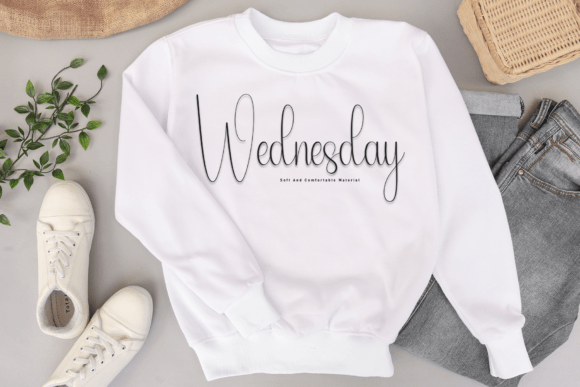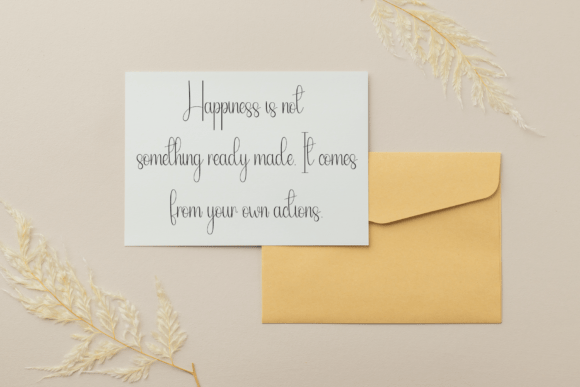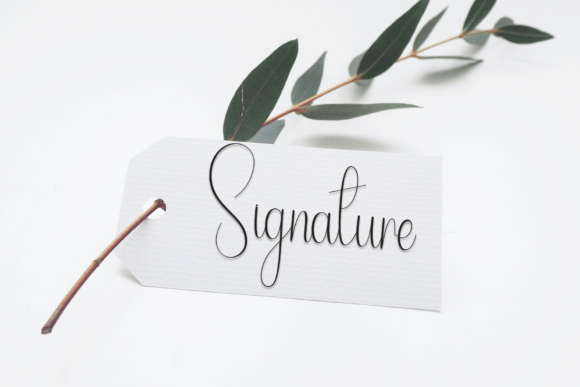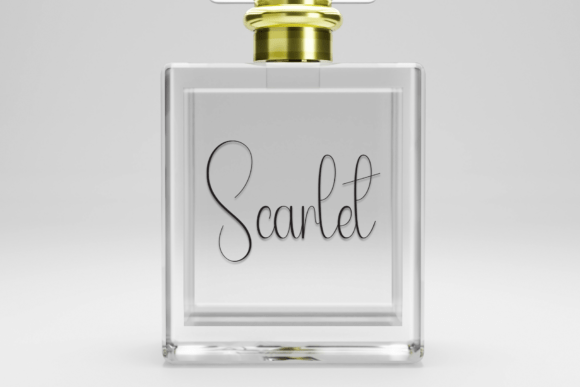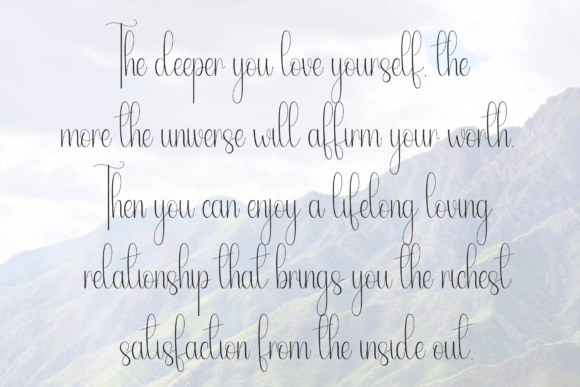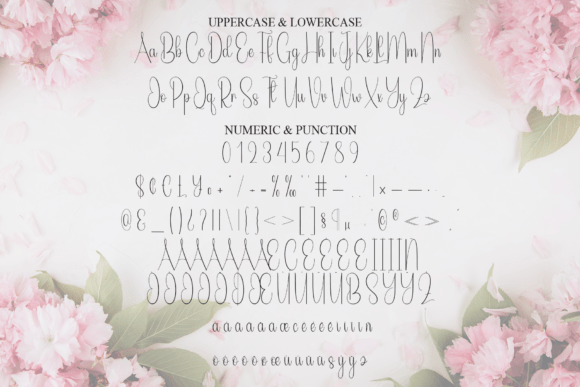
Introducing Greatening Font: Elevate Your Designs with Elegance and Playfulness
In the world of typography, fonts play a crucial role in conveying the tone and personality of a design. For designers and crafters seeking a typeface that embodies both sophistication and whimsy, Greatening Font is an exceptional choice. This stylish handwritten script font seamlessly blends modern elegance with a playful touch, making it perfect for a wide range of creative projects.
The Unique Charm of Greatening Font
Greatening Font boasts fluid strokes and charming curves that breathe life into any design. Its unique character lies in its ability to add a personal feel, making each project stand out with warmth and sophistication. Whether you’re crafting a logo, designing packaging, or creating invitations, Greatening Font is the ideal companion for bringing your vision to life.
Key Features of Greatening Font
- Modern Elegance: Greatening Font exudes a contemporary charm that aligns with current design trends, ensuring your projects look fresh and relevant.
- Playful Touch: The font’s playful elements add a layer of approachability and fun, perfect for designs that aim to engage and delight.
- Fluid Strokes: The smooth, flowing strokes contribute to the font’s dynamic and lively feel, making it suitable for a variety of applications.
- Charming Curves: The elegant curves of Greatening Font enhance its aesthetic appeal, adding a touch of sophistication to any text.
Ideal Applications for Greatening Font
Greatening Font’s versatility makes it an excellent choice for numerous design projects. Here are some of the ideal applications:
- Logos: Create memorable and impactful logos that stand out with Greatening Font’s unique style.
- Packaging: Elevate your product packaging with a font that combines elegance and playfulness, capturing customers’ attention.
- Invitations: Make your invitations special with Greatening Font, adding a personal touch that sets the tone for the event.
- Marketing Materials: From brochures to flyers, Greatening Font can enhance your marketing materials with its distinctive charm.
Tips for Maximizing Greatening Font’s Potential
To get the most out of Greatening Font, consider the following tips:
- Pair with Complementary Fonts: Combine Greatening Font with simpler, sans-serif fonts for contrast and visual interest.
- Experiment with Colors: While Greatening Font looks stunning in classic black and white, don’t hesitate to experiment with colors that match your brand’s palette.
- Adjust Letter Spacing: Fine-tune the letter spacing to ensure optimal readability and aesthetic appeal.
Greatening Font is more than just a typeface; it’s a design companion that can elevate your projects with its blend of modern elegance and playful charm. Its fluid strokes, charming curves, and versatile nature make it an excellent choice for designers and crafters looking to add a personal touch to their work. Whether you’re creating logos, packaging, invitations, or marketing materials, Greatening Font is sure to bring warmth, sophistication, and creativity to every project.